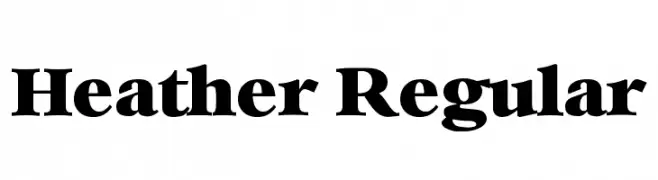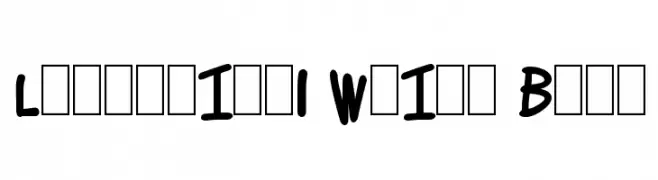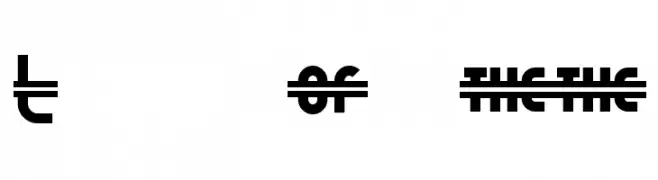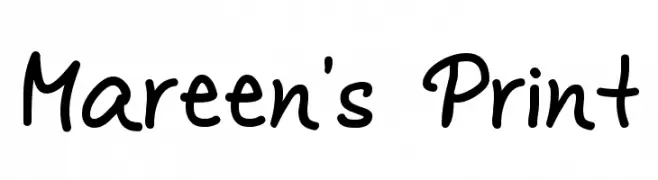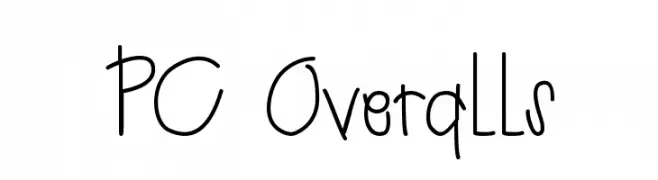
A bold serif font with dramatic, angular serifs and a vintage-modern appeal.
A playful, whimsical font with elongated, narrow characters and a modern look.
A bold, striped font with a modern, geometric design.
A bold, expressive handwritten font with playful strokes.
An ornate and decorative font with vintage-inspired flourishes.
A bold, geometric font with Art Deco influences and high contrast.
A bold, dynamic script font with a playful and energetic style.
A bold, 3D graffiti-style font with angular strokes and shadow effects.
A bold, brush-style font with dynamic and artistic flair.
A bold, playful serif font with exaggerated serifs and a strong presence.
A vintage, typewriter-style font with a hand-drawn, monospaced design.
A bold, gothic decorative font with sharp, angular edges and intricate patterns.
A decorative and fluid font with a melting, surreal appearance.
A bold, angular font with a futuristic and geometric design.
A bold, decorative font with swirling serifs and a playful style.